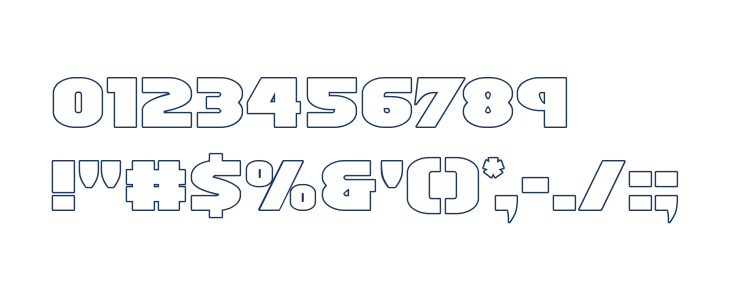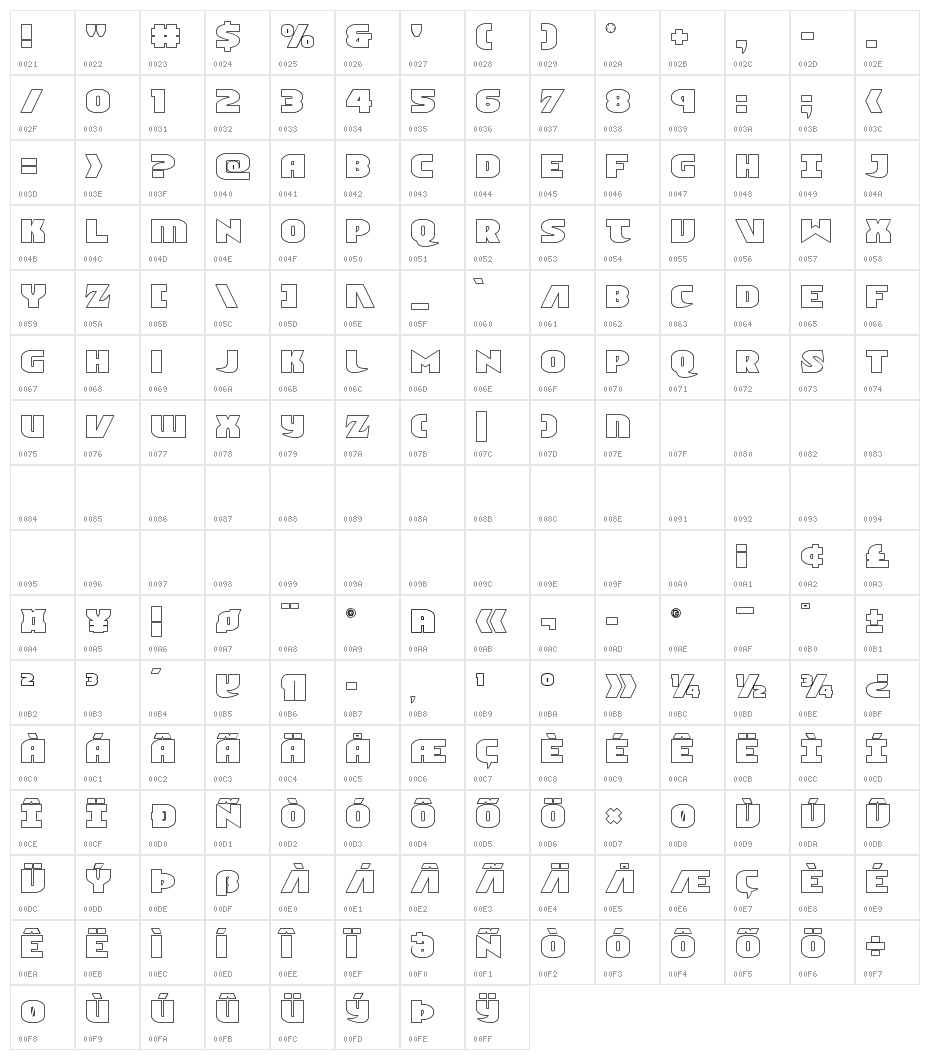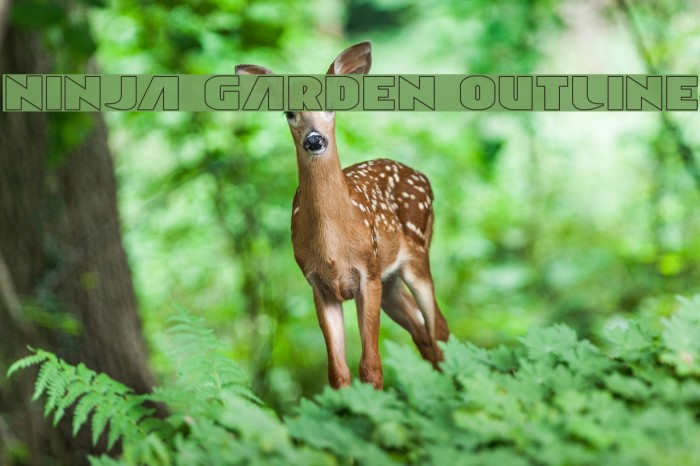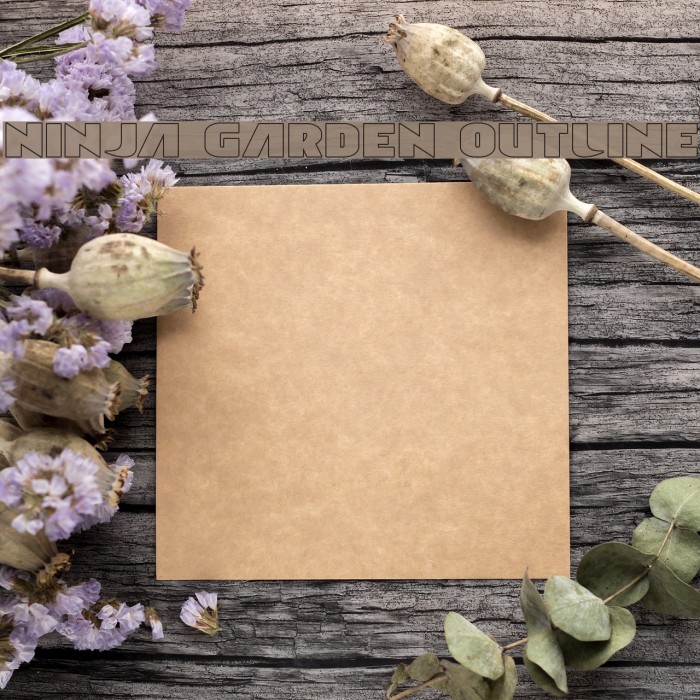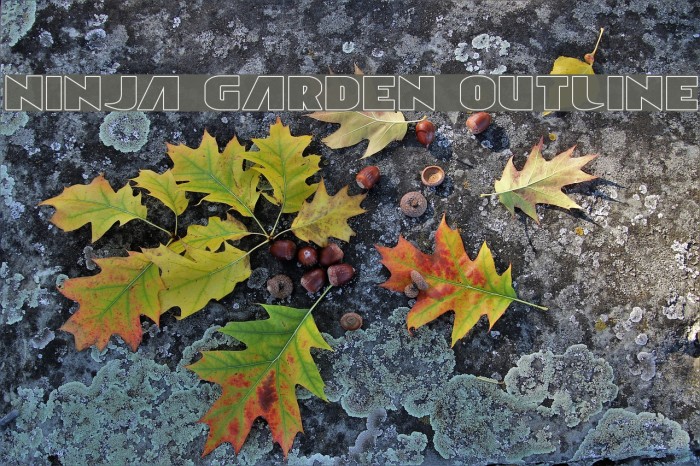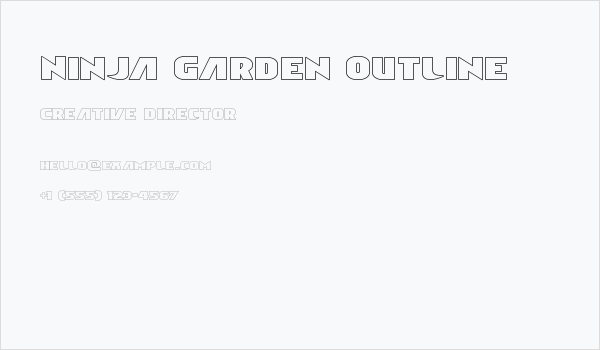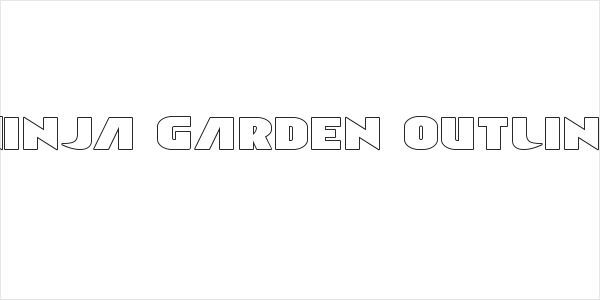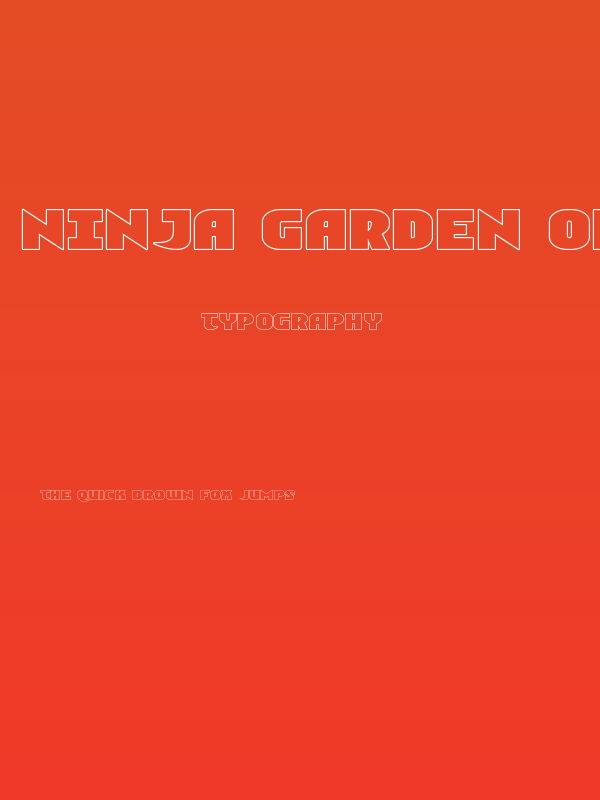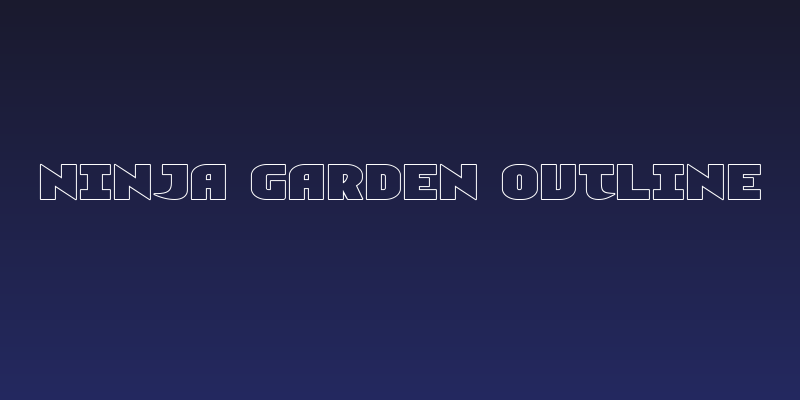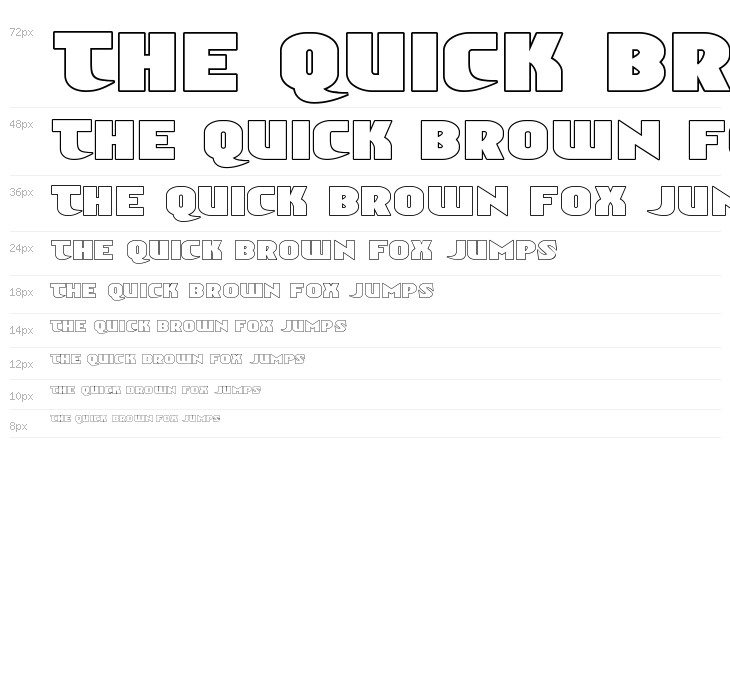
Ninja Garden Outline Font
Ninja Garden Outline Description
This font features a bold and striking outline style, characterized by thick, uniform strokes that form the outer edges of each character. The design is geometric and blocky, with a futuristic and modern aesthetic. The uppercase letters are particularly prominent, with a strong presence that commands attention. The lowercase letters maintain the same bold outline, ensuring consistency across the typeface. Numbers and special characters are equally bold, making them suitable for a variety of uses. The overall appearance is clean and impactful, ideal for designs that require a strong visual statement.
| Proposed Projects | Ideal for headlines, posters, logos, and any design that requires a bold and modern aesthetic. |